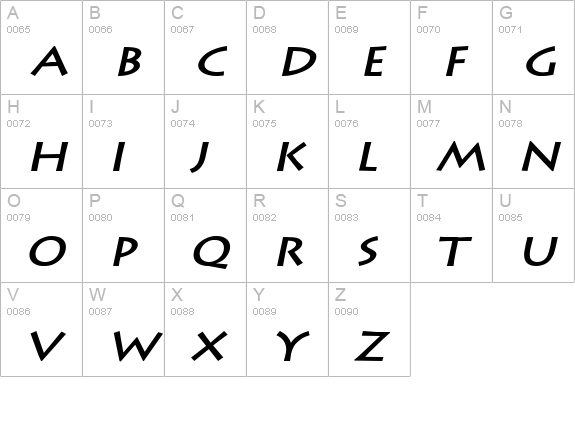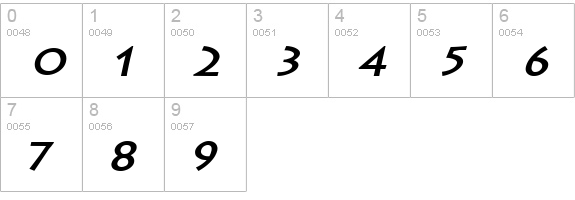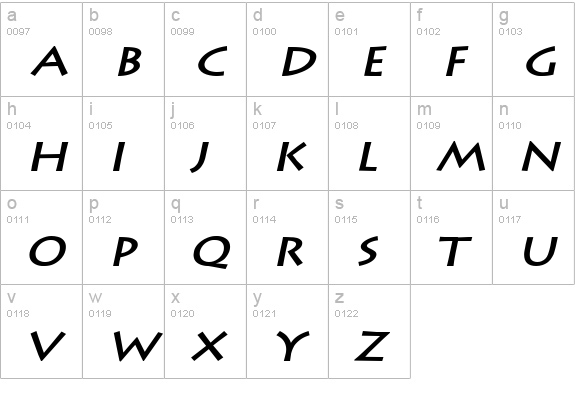
Liste Wide BoldItalic Font Details
Liste Wide BoldItalic is a distinctive, extended-width variant in the Liste typeface family \xE2\x80\x94 well suited to design and typography projects.
Liste Wide BoldItalic is a stylish and eye-catching font that exudes confidence and sophistication. Its bold and italic design makes it perfect for creating standout headlines, titles, and branding materials. With its wide letter spacing, Liste Wide BoldItalic commands attention and adds a touch of modernity to any design project. The best part about Liste Wide BoldItalic is that it is completely free to download at FontsMarket.com. This means you can easily access this versatile font without any cost, making it a valuable addition to your font collection. Whether you're designing a poster, website, or logo, Liste Wide BoldItalic is sure to make a bold statement and elevate your design to the next level.